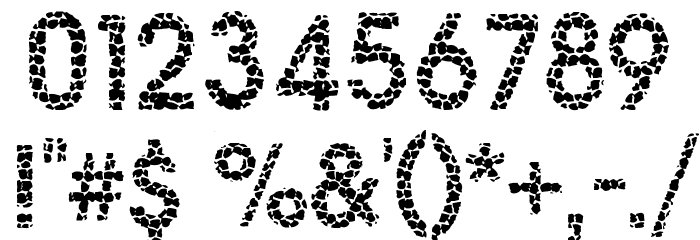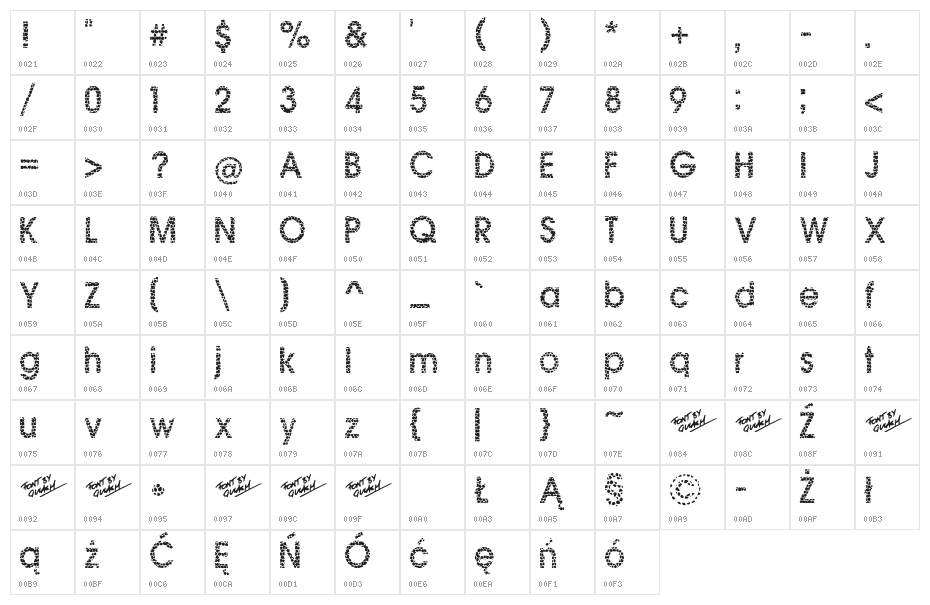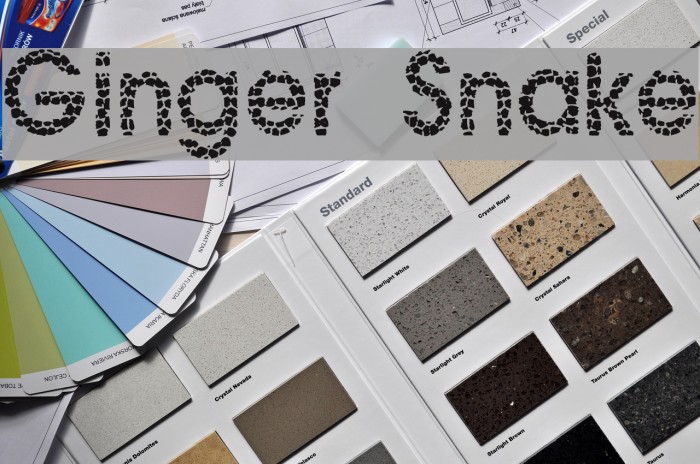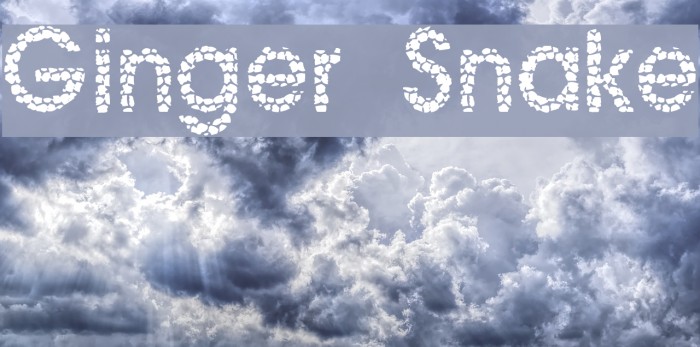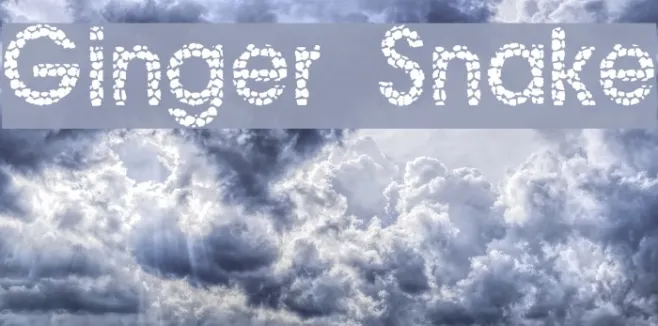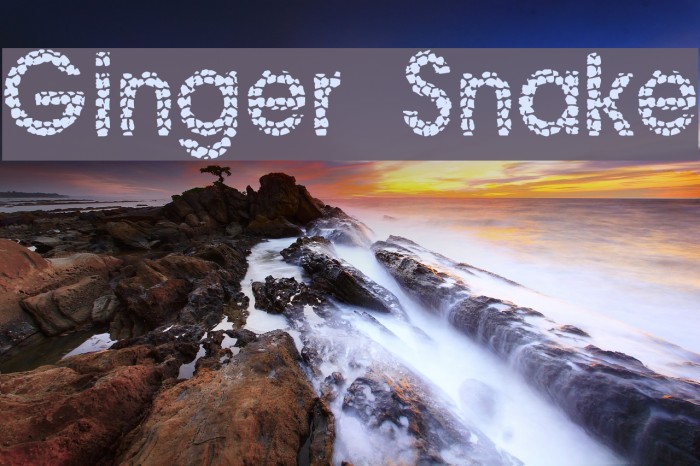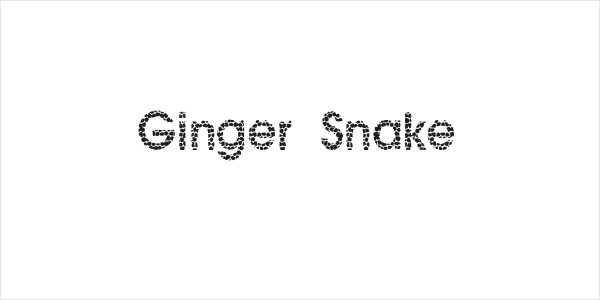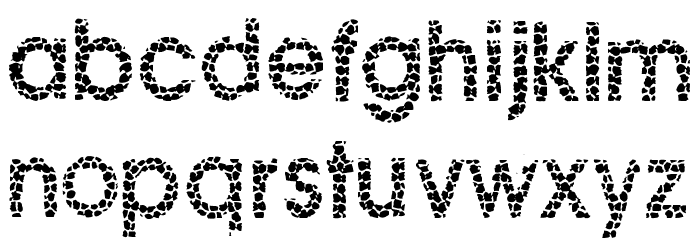
Ginger Snake Font
Ginger Snake Description
This font features a unique and playful design with characters composed of small, irregular shapes resembling pebbles or scales. The overall appearance is textured and organic, giving it a distinctive and eye-catching look. Each letter maintains a consistent structure, ensuring readability while adding a decorative flair. The font includes both uppercase and lowercase letters, numerals, and a variety of special characters, making it versatile for different design needs. Its bold and artistic style makes it suitable for projects that require a standout visual element.
| Proposed Projects | Ideal for creative projects such as posters, album covers, children's books, and branding materials that require a playful and artistic touch. |